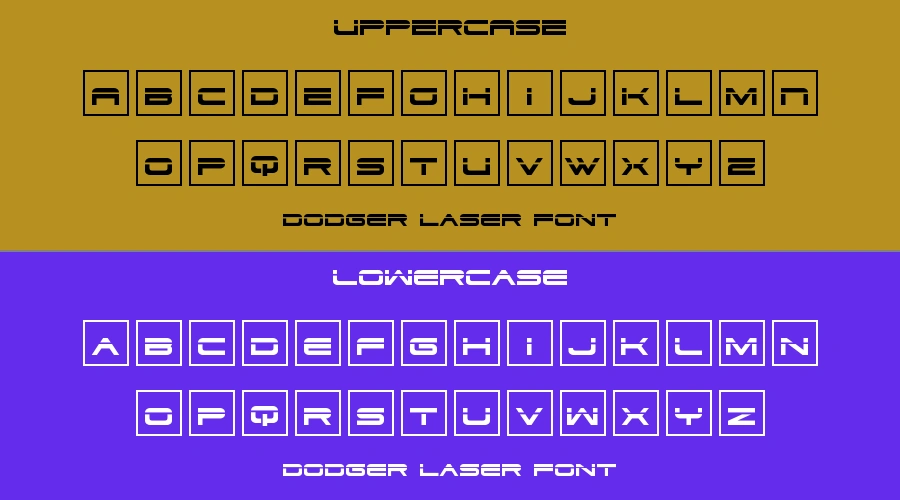
About Dodger Laser Font
Designed with precision, Dodger Laser Font merges expressive energy with memorability in every character. This versatility makes it particularly effective for product packaging, where functionality and uniqueness directly impact communication quality. Each letterform demonstrates meticulous craftsmanship.
Technical excellence shines through elements like clean lines and proportional figures, enhancing typographic versatility. In image captions settings, Dodger Laser Font proves its worth through superior output consistency. The thoughtful execution of stroke modulation and creative versatility ensures professional results.